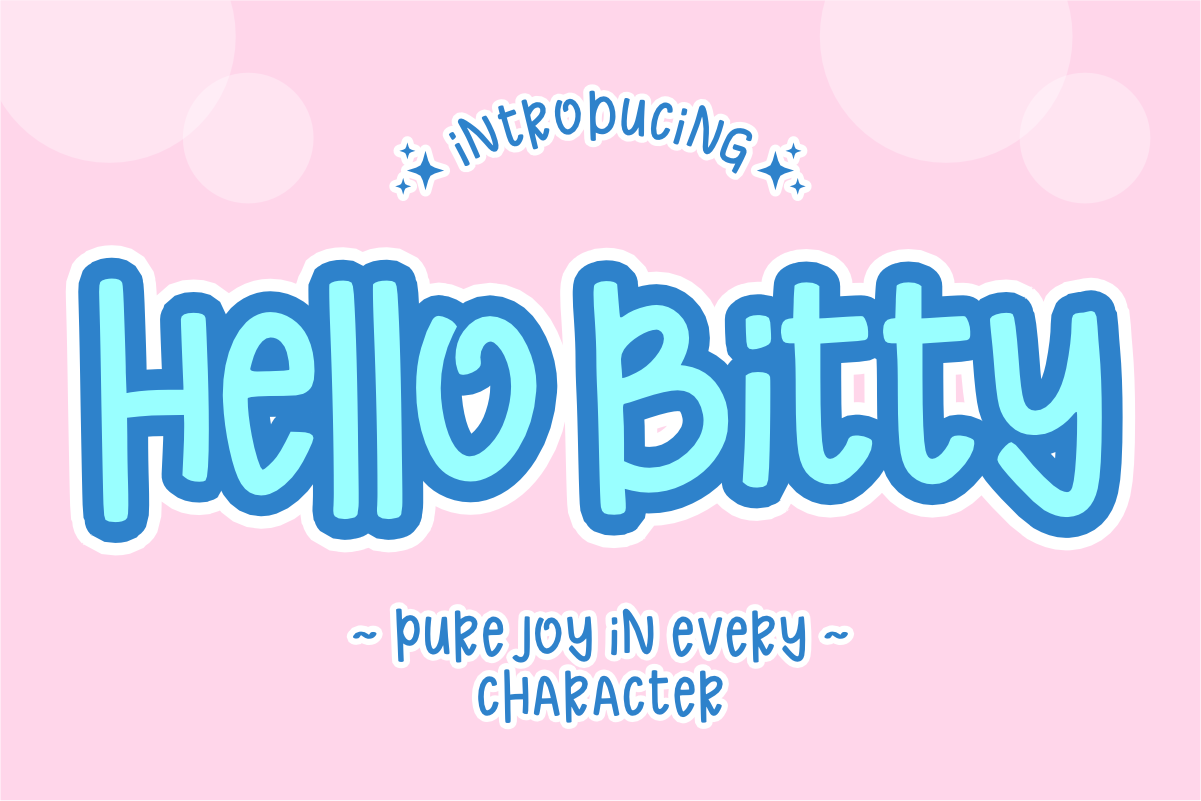
Hello Bitty - Cute Handwritten Font
Hello Bitty is a sweet, bubbly handwritten display font featuring tall, rounded letterforms adorned with delightful heart accents and playful charm. Radiating pure joy in every character, this cute font brings a soft, cheerful pop to kids' crafts, nursery wall art, birthday invitations, and custom apparel. Every character is cleanly vectorized to guarantee high-resolution prints and smooth, effortless cutting on Cricut and Silhouette machines.